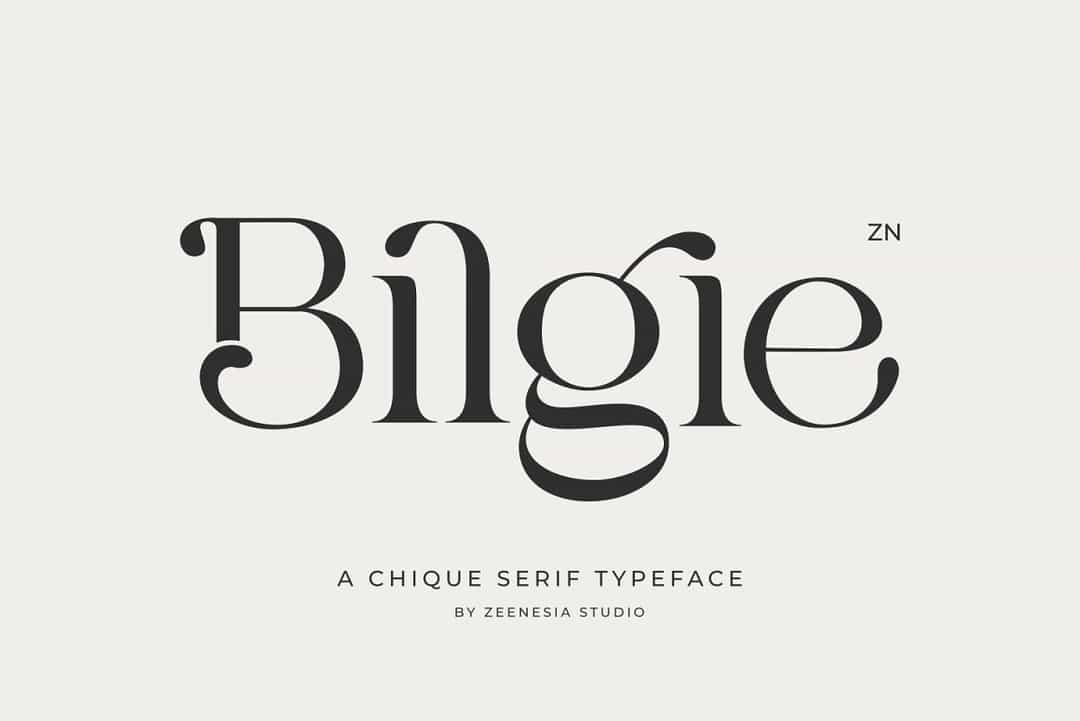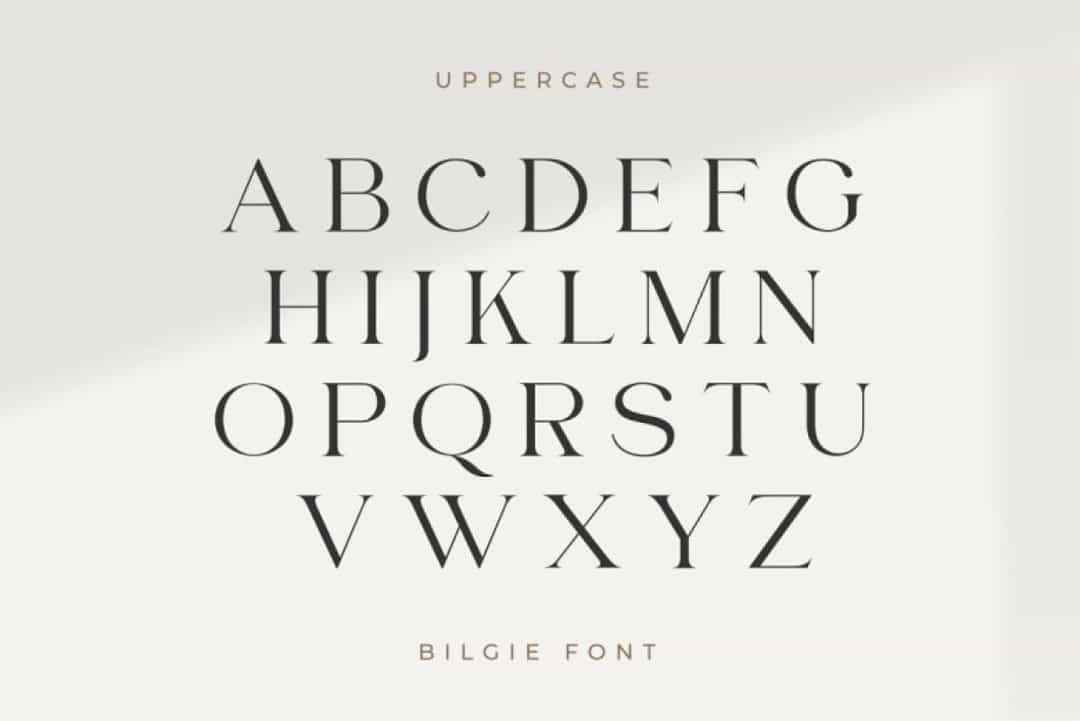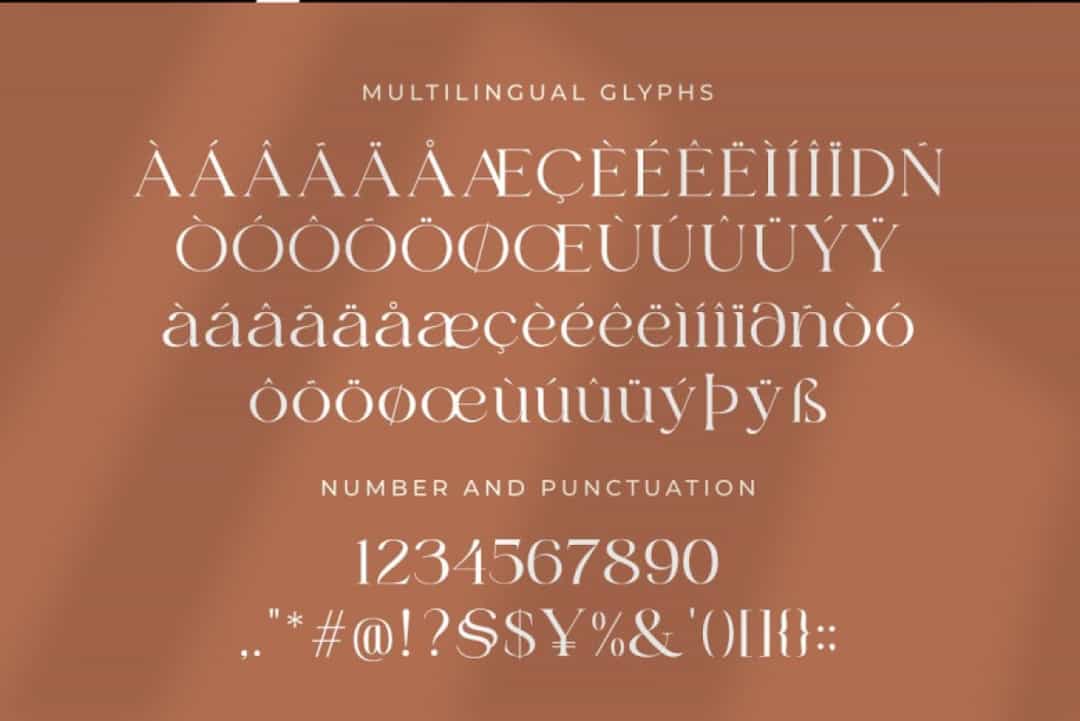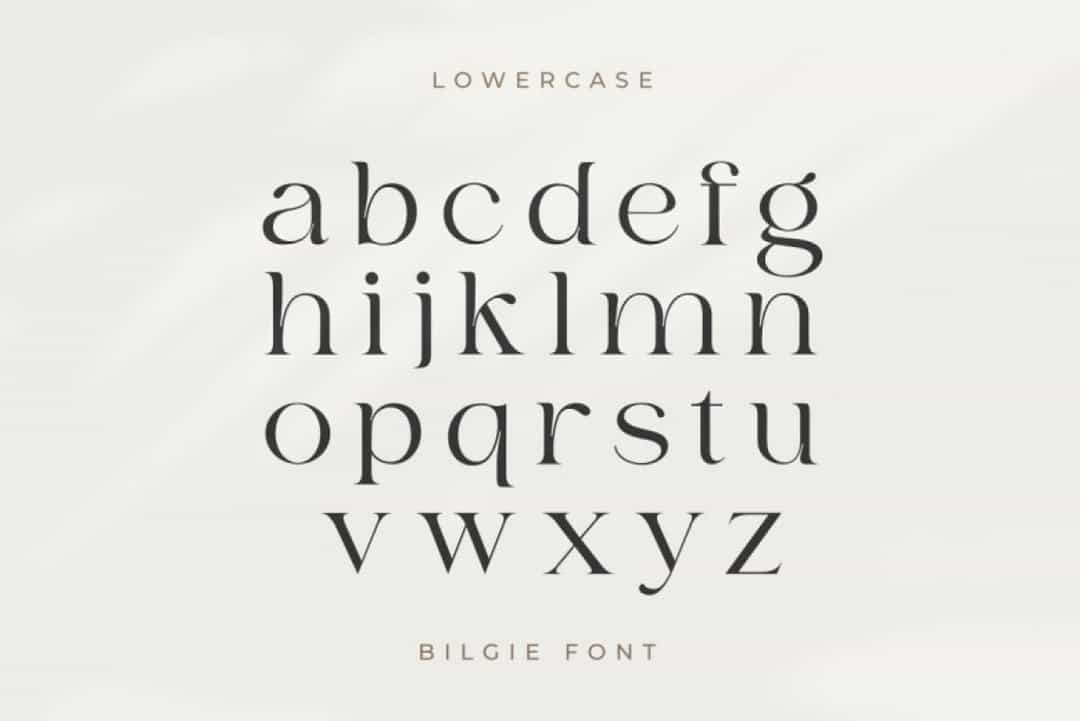
Bilgie is an elegant serif font. With its distinct and sophisticated appearance, this font can add flair and excitement to your project. Flexible yet great in large format sizes – Bilgie adds excitement with every stroke!